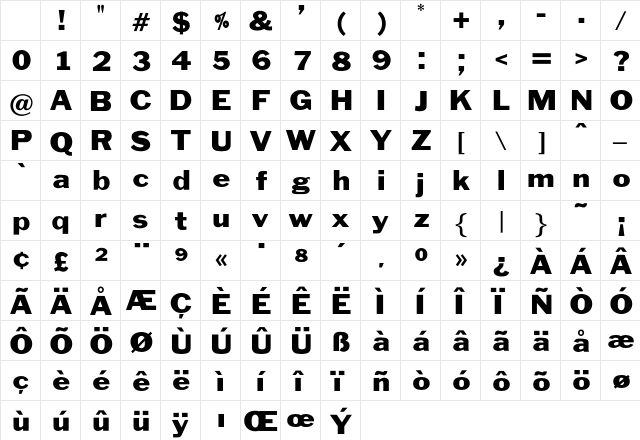
OPTIFranklinGothic-Wide Regular Free Font
OPTIFranklinGothic-Wide Regular
Design Context for OPTIFranklinGothic-Wide
OPTIFranklinGothic-Wide takes a clean, functional approach - its unadorned letterforms prioritise legibility and work reliably across screen and print environments.
Font Pairing: Works well alongside a characterful serif or display font that can carry the expressive load while OPTIFranklinGothic-Wide handles the functional copy.
Pro Tip: Use OPTIFranklinGothic-Wide for UI labels, navigation, and short-form body copy where clean legibility is the priority.